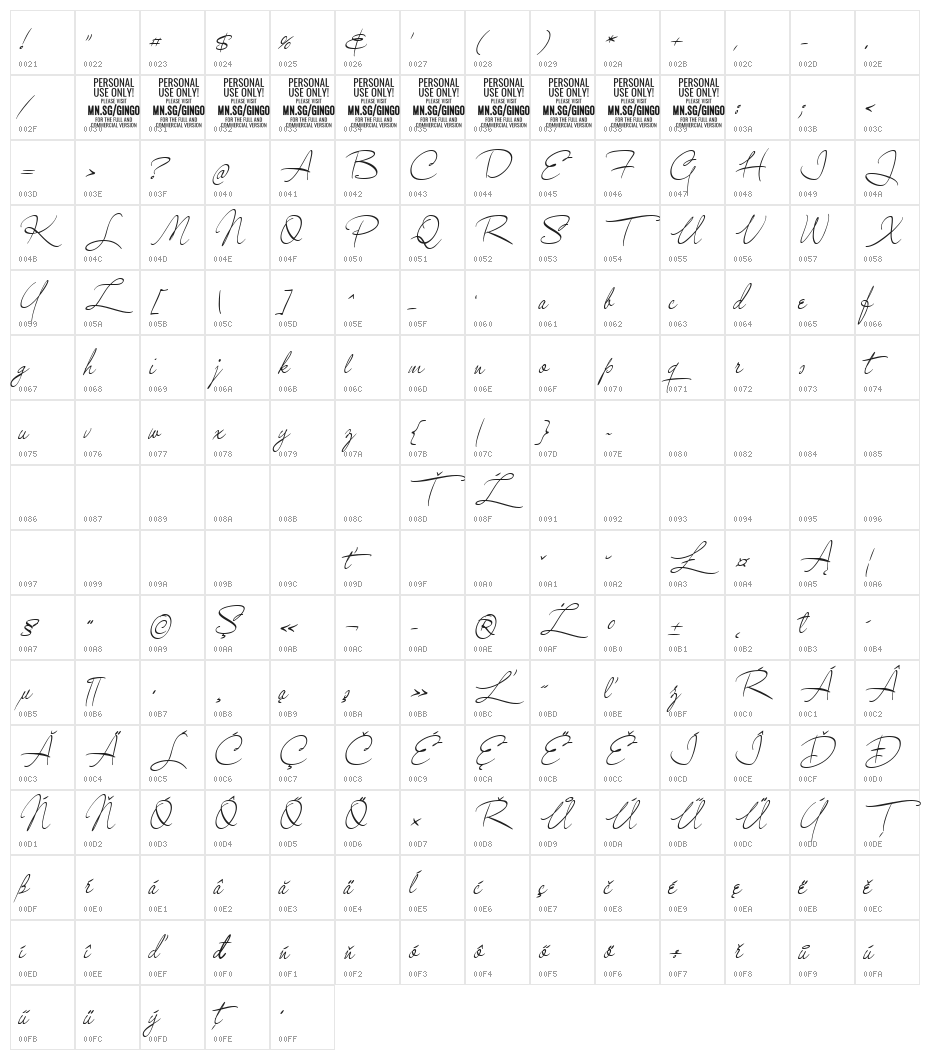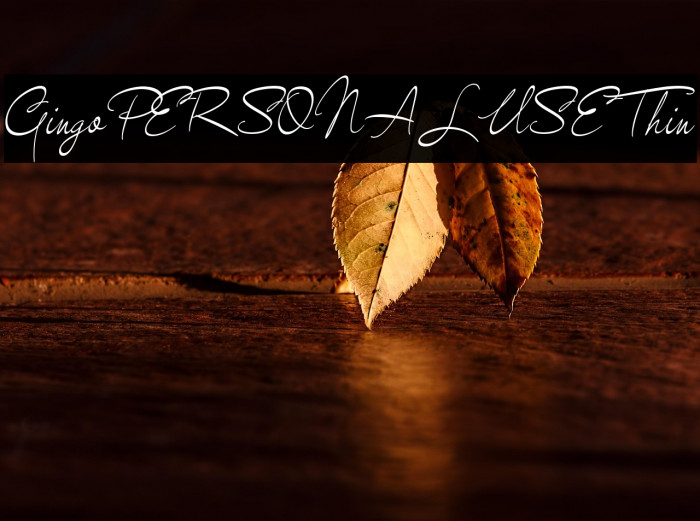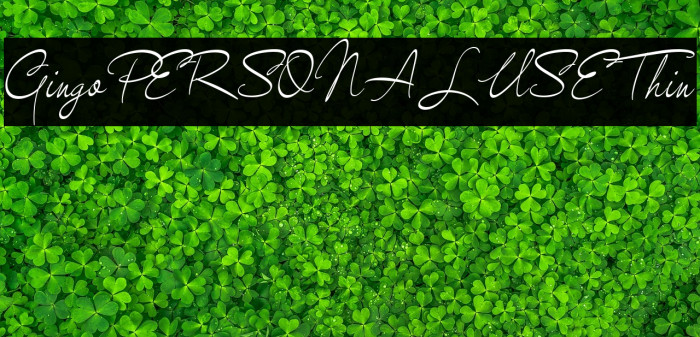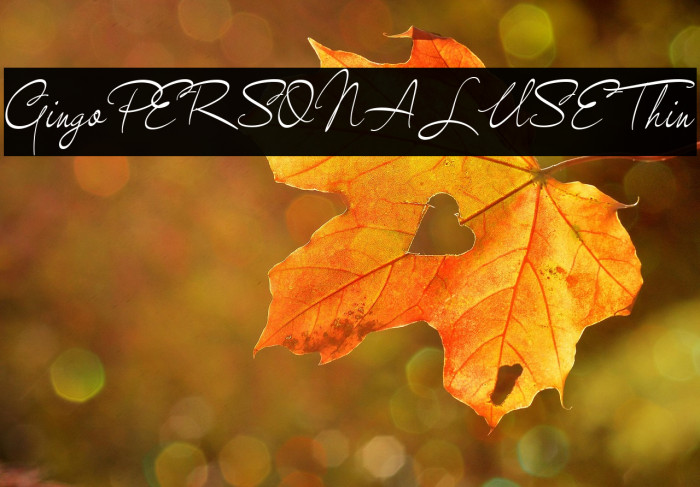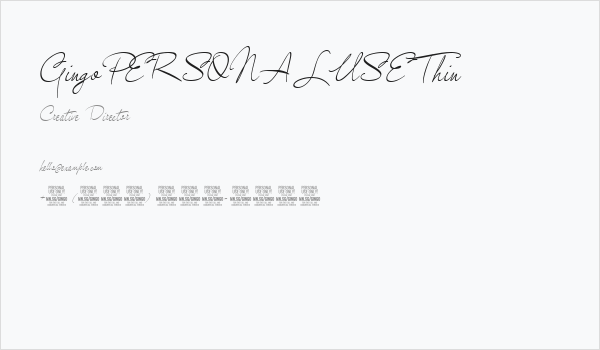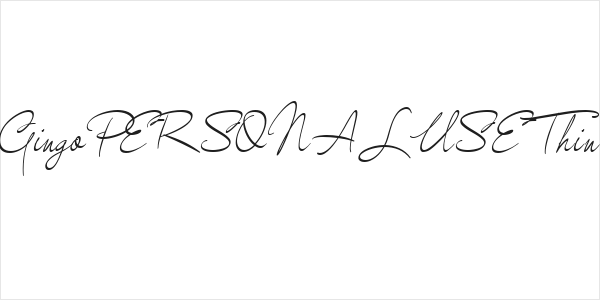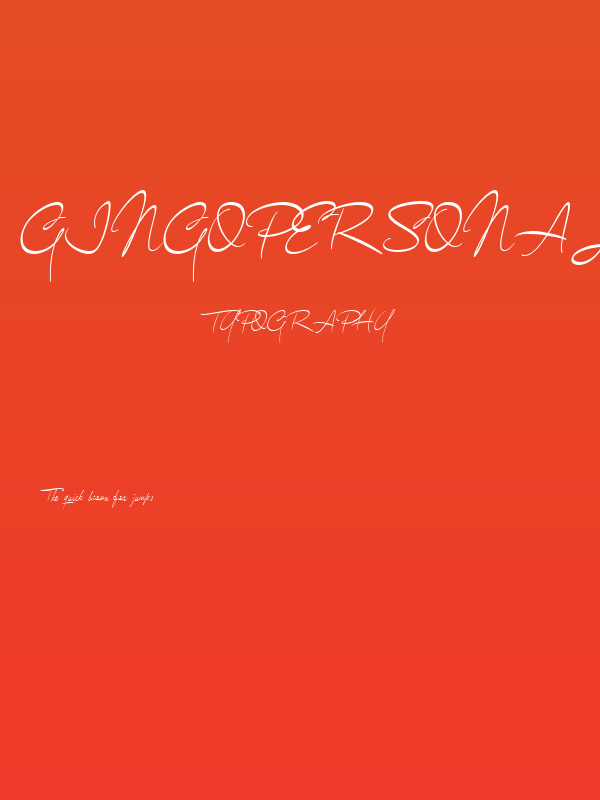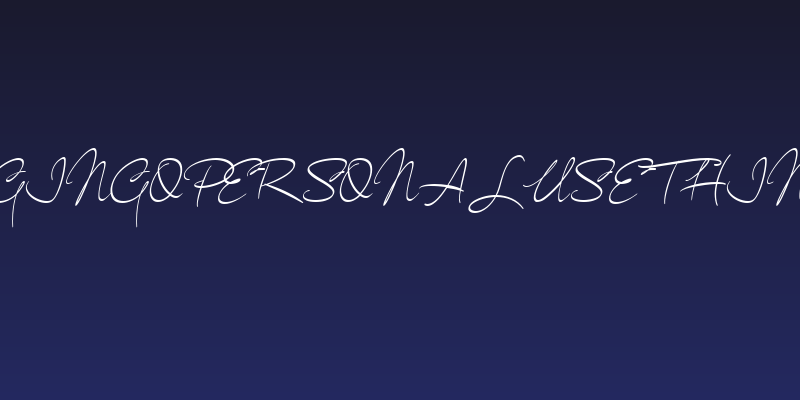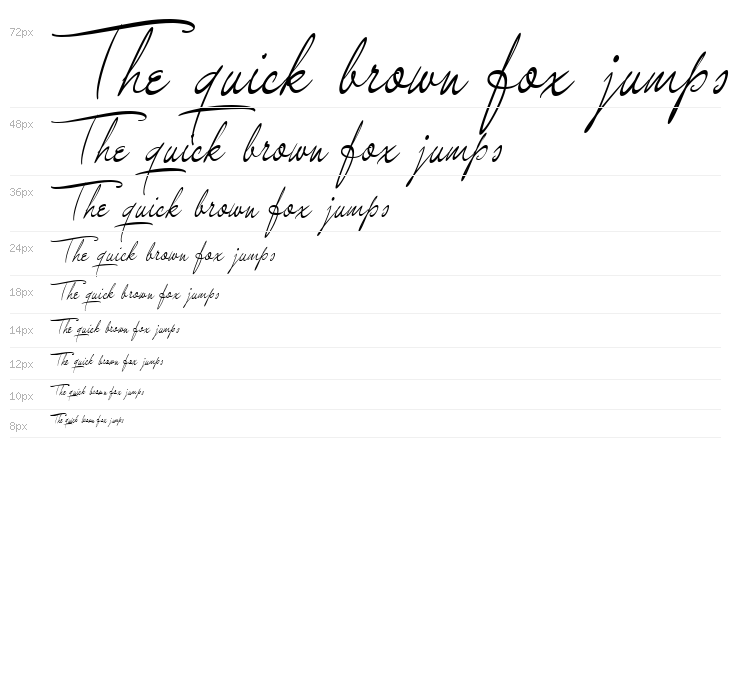
GingoPERSONALUSEThin Font
This elegant script font features a flowing, cursive style that mimics natural handwriting. The characters are gracefully connected, with smooth, sweeping lines and delicate curves. The uppercase letters are slightly more elaborate, with extended flourishes that add a touch of sophistication. The lowercase letters maintain a consistent flow, enhancing readability while preserving the font's artistic flair. The numerals and special characters are designed to match the overall aesthetic, ensuring a cohesive look across all text elements.
| Overall Style | Elegant, Artistic |
| Use Case | Logos, Invitations, Personal stationery |
| Proposed Projects | Ideal for wedding invitations, elegant branding, personal stationery, and artistic projects that require a touch of sophistication. |